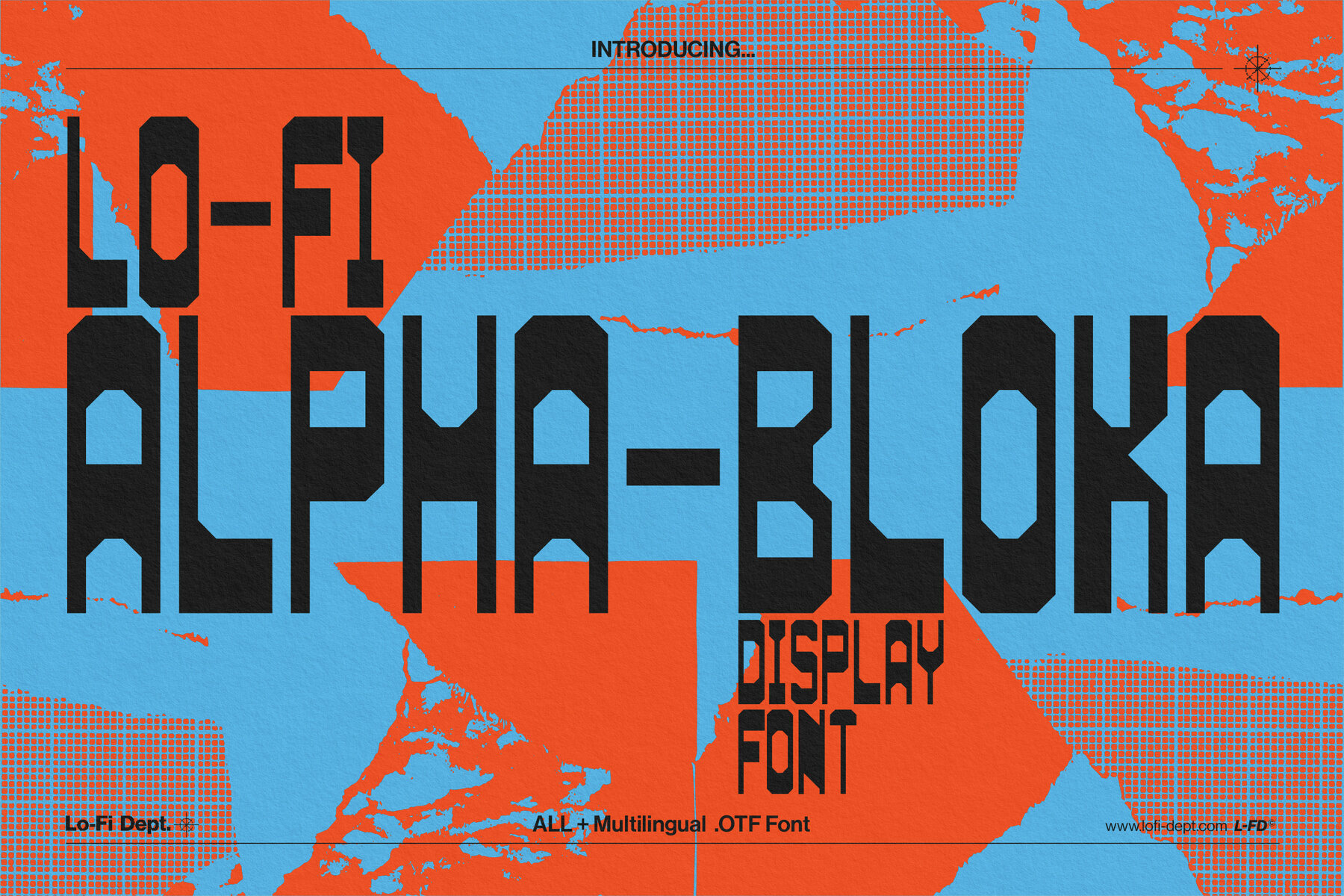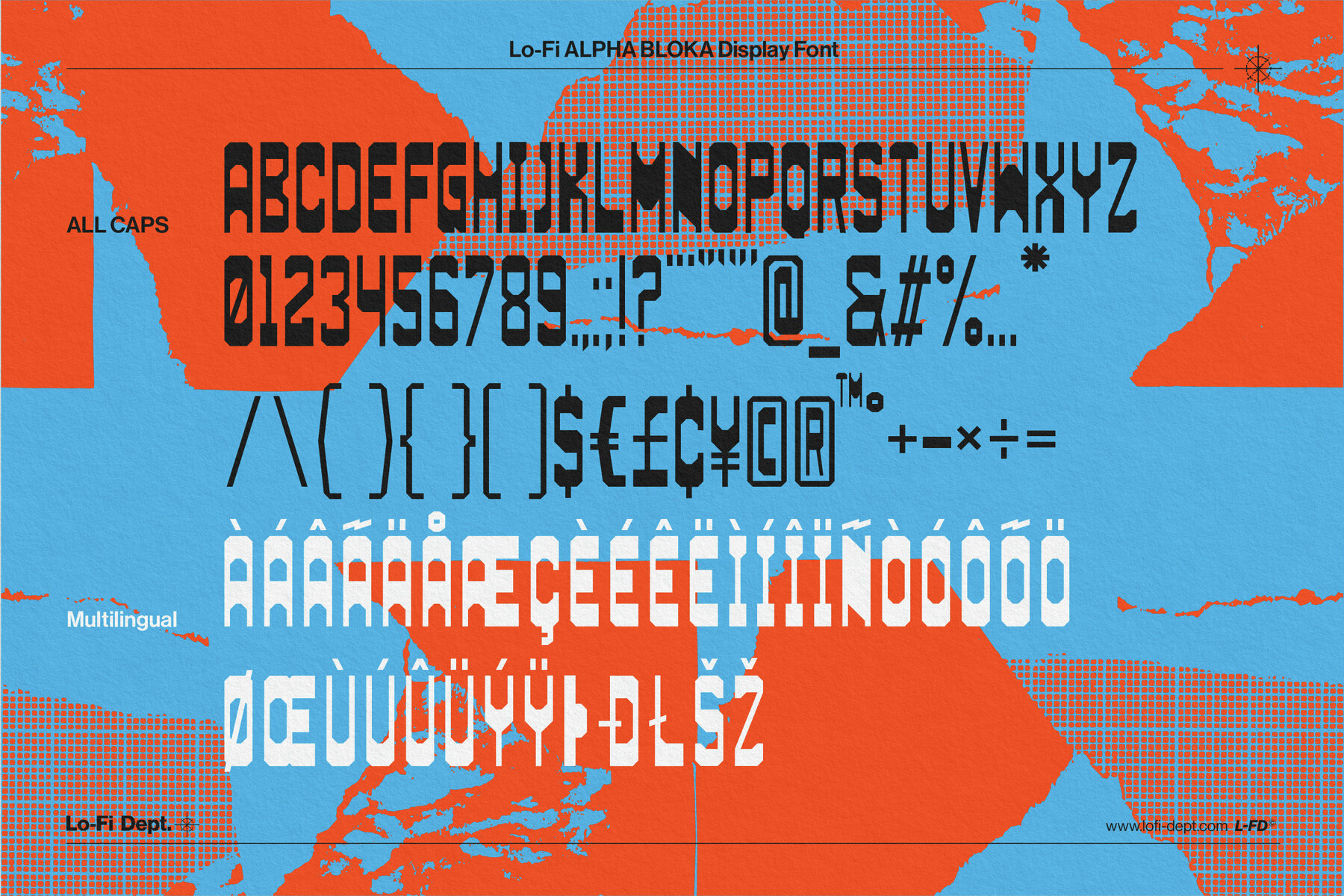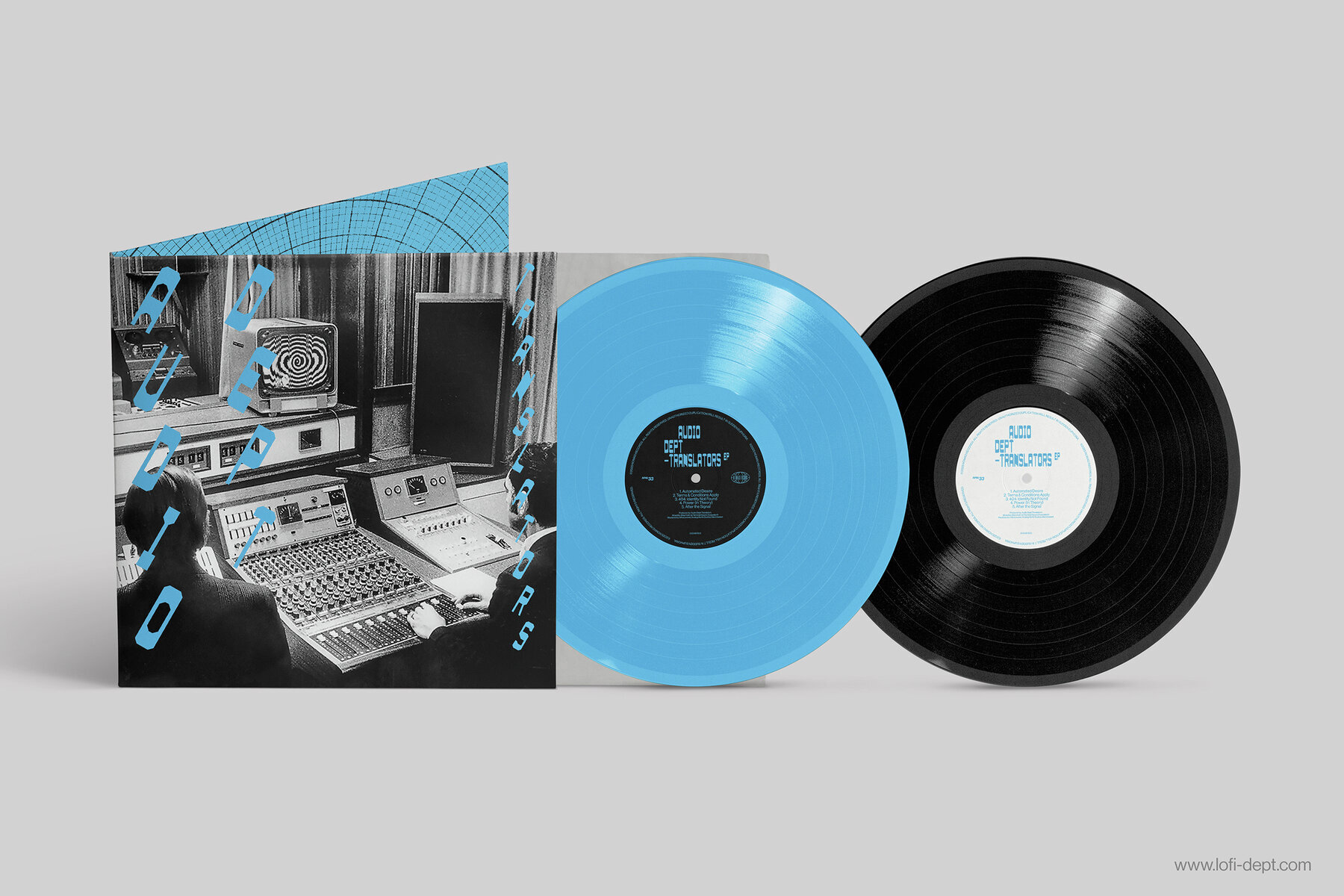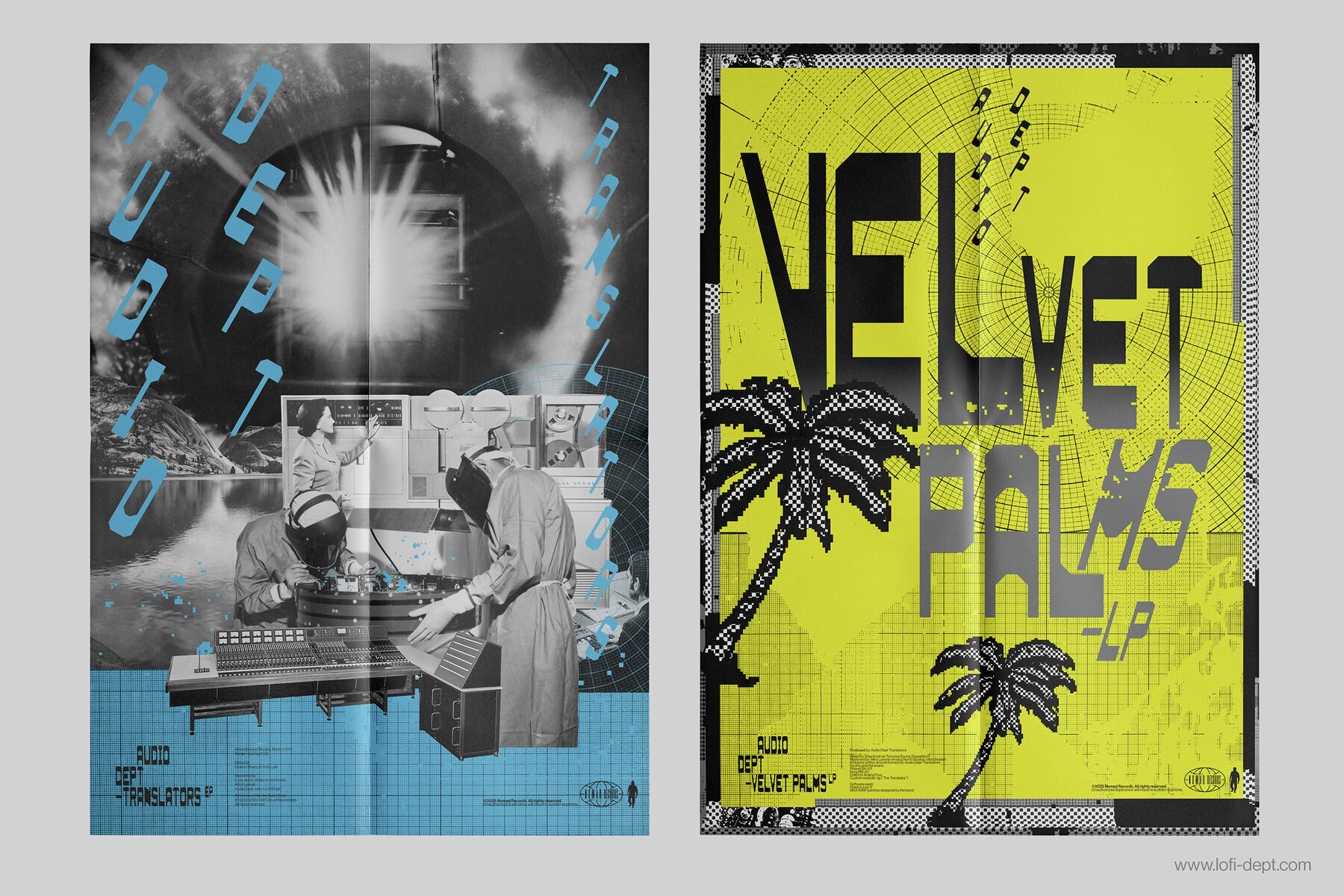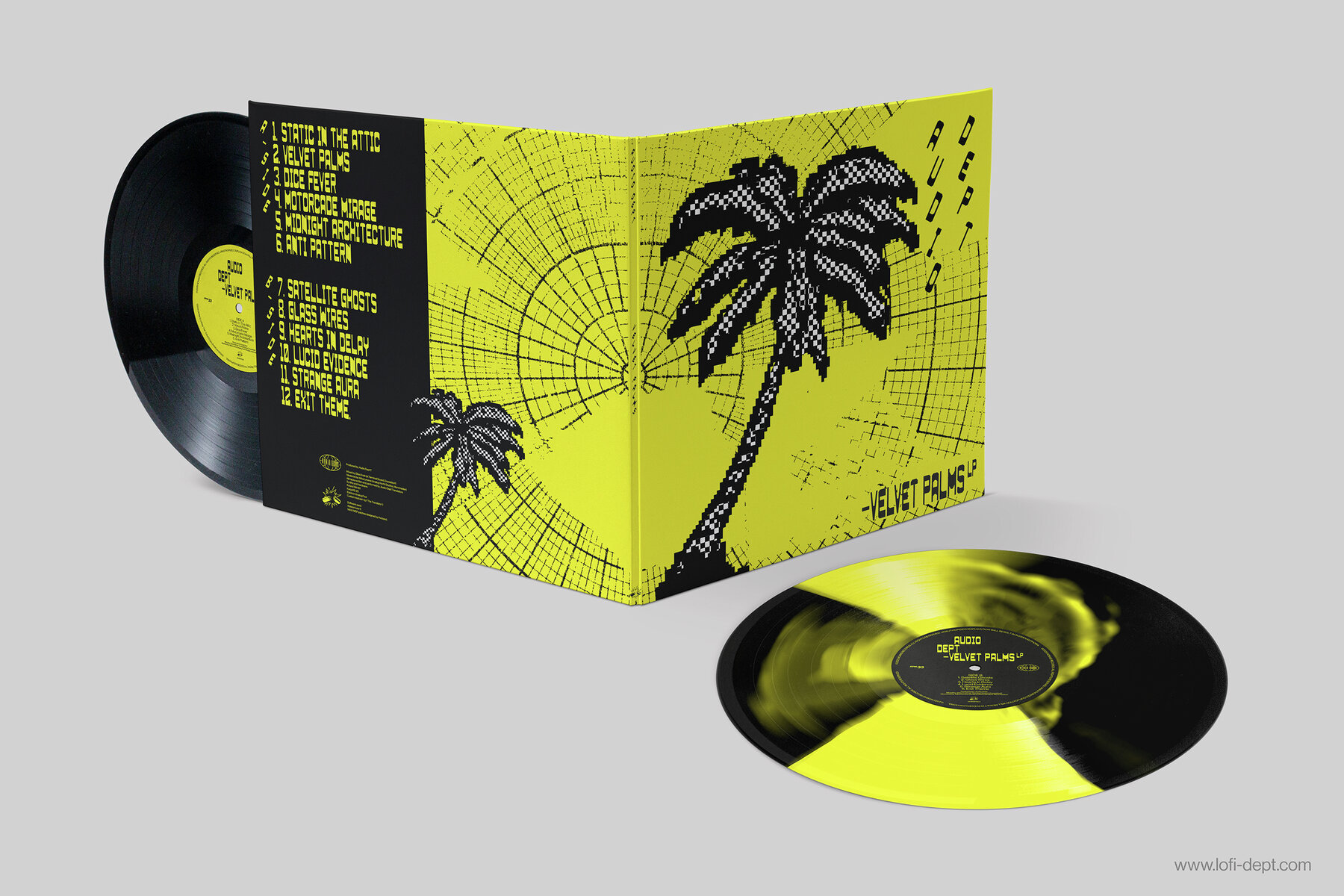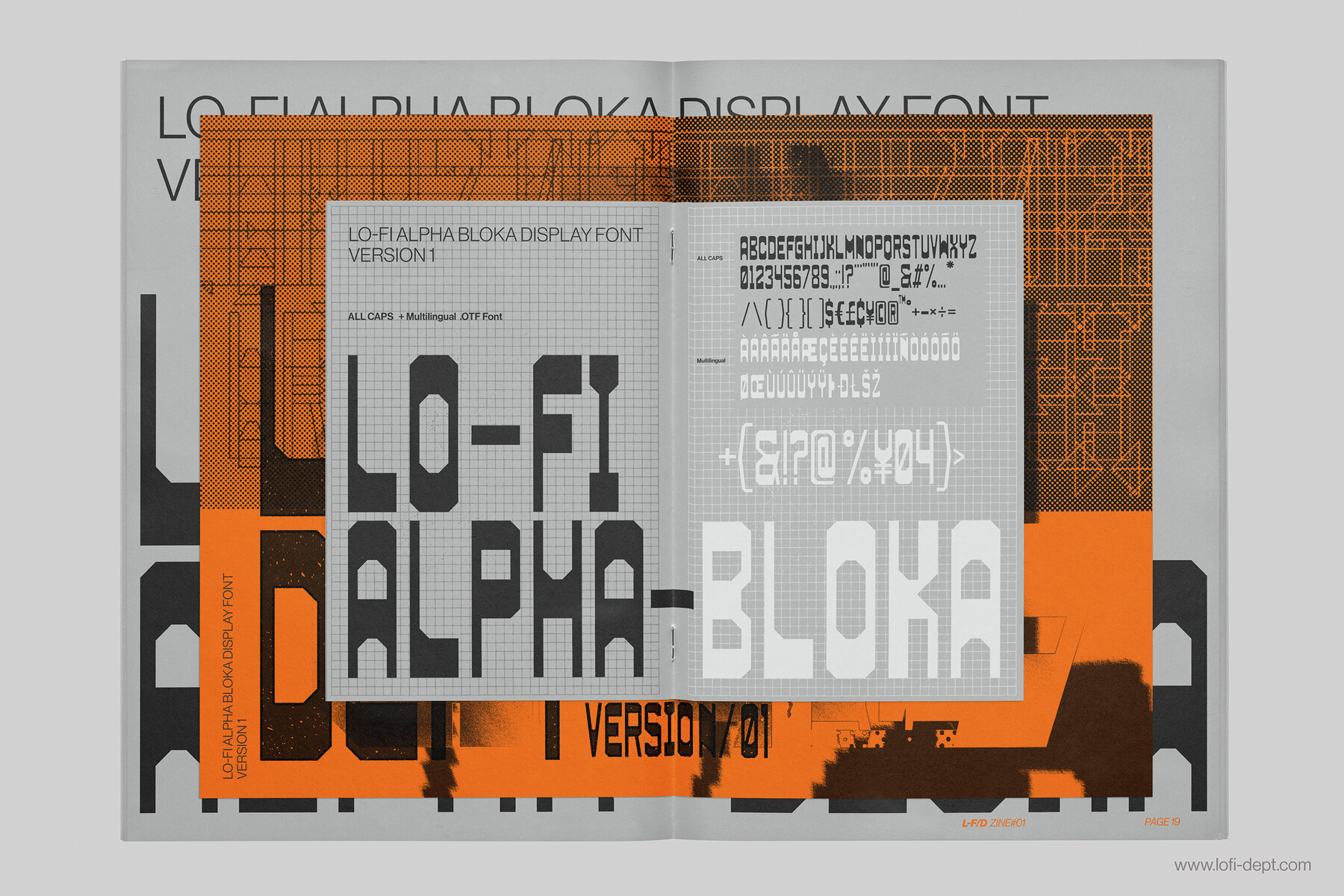
Lo Fi ALPHA BLOKA Font
Lo-fi Alpha Bloka stands as a testament to modern brutalist design, capturing a gritty industrial essence that commands attention. Its geometric and modular forms evoke the hard edges of raw concrete, creating a visual impact that is both stark and sophisticated. Perfect for those projects where minimal ornamentation meets maximal impact. The font's characters are crafted from substantial blocks and sharp angles, delivering a rhythmic, grounded presence that boldly claims space on any page. Ideal for headlines, posters, and visual identities, Lo-fi Alpha Bloka declares confidence and demands to be noticed.Lo-fi Alpha Bloka: Bold Display Font with Industrial Flair